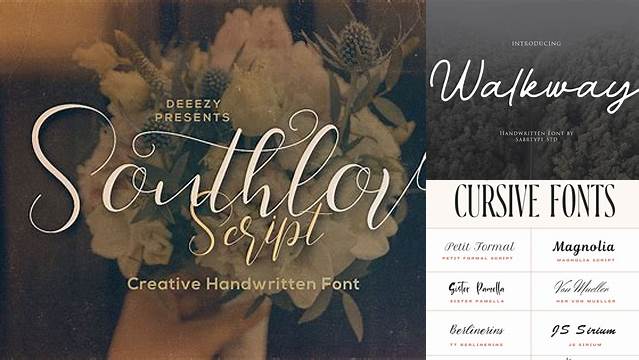
Top Cursive Fonts For Premiere Pro: Elevate Your Videos
Hey guys! Ever wanted to add that extra oomph to your videos with some elegant, flowing text? Well, you've come to the right place! In this article, we're diving deep into the world of cursive fonts in Premiere Pro. We'll explore why they're so effective, how to use them, and, most importantly, which ones will make your videos shine. So, buckle up and let's get started!
Why Use Cursive Fonts in Your Videos?
Cursive fonts, with their flowing lines and handwritten feel, can bring a touch of sophistication and personality to your video projects. But why should you specifically consider using these types of fonts? Let's break it down:
- Elegance and Style: Cursive fonts instantly add a touch of class. They evoke a sense of refinement, making them perfect for videos that aim for a polished and professional look. Think wedding videos, cinematic intros, or even tutorials where you want to project a sense of expertise and care.
- Emotional Connection: The handwritten nature of cursive fonts creates a more personal and intimate connection with the viewer. It's like you're communicating directly with them, adding a human touch that can be missing in more rigid, blocky fonts. This is especially useful for storytelling, documentaries, or any video where you want to build an emotional connection.
- Emphasis and Highlight: A well-placed cursive font can draw the viewer's eye to key information or a specific message. Imagine using a beautiful cursive font for a title, a quote, or a call to action. It stands out and makes your message more memorable. However, remember to use it sparingly for emphasis – overdoing it can dilute the effect.
- Brand Identity: If your brand has a personality that's elegant, creative, or personal, then using cursive fonts can be a great way to reinforce your brand identity. Consistent use of a specific cursive font can help viewers instantly recognize your style. Think about luxury brands, artisanal businesses, or creative agencies – they often use cursive fonts to convey their brand aesthetic.
- Versatility (with caveats): While cursive fonts are known for their elegance, they can also be surprisingly versatile. Depending on the specific font style – from delicate and airy to bold and dramatic – you can use them in a wide range of video genres. However, it's important to consider the context. A highly ornate cursive font might not be suitable for a tech tutorial, for example. Always choose a font that matches the overall tone and style of your video.
Choosing the right cursive font is crucial. A poorly chosen font can be illegible or clash with your video's aesthetic. We'll delve into specific font recommendations later, but keep these general principles in mind: readability is key, consider the mood you want to create, and ensure the font complements your overall design.
Top Cursive Fonts for Premiere Pro
Okay, let's get to the good stuff! Here are some of the best cursive fonts for Premiere Pro that will elevate your video projects. Remember, the best font for you will depend on the specific style and tone you're aiming for, so experiment and find what works best for your project.
1. Bristro Script
Bristro Script is a modern calligraphy font that exudes elegance and charm. Its flowing strokes and delicate curves make it perfect for wedding videos, romantic films, or any project that needs a touch of sophistication. It's highly readable and features a vast range of glyphs, making it ideal for any use case. Bristro Script is extremely versatile, it offers OpenType features such as stylistic alternates and ligatures. These enable you to make your text look even more unique, like it has been handwritten by a pro calligrapher. It works well in titles, subtitles, lower thirds, and end screens. However, it can also be used for body text with the correct size and kerning. This font can be a great way to convey a sense of style in the videos.
2. Anisha Script
If you're looking for a font that strikes a balance between elegance and playfulness, Anisha Script is an excellent choice. It has a whimsical feel that makes it suitable for children's videos, birthday greetings, or any project that needs a touch of fun. It is a beautiful, handwritten-style script with a flowing and organic feel. This font can be great for a variety of projects, including logo design, branding, social media graphics, and even wedding invitations. Anisha Script offers a variety of OpenType features, including stylistic alternates, swashes, and ligatures. These features allow you to add extra flair and personality to your text. This can help you make it truly unique. It also offers multiple language support, making it a global choice. The versatility of Anisha Script also makes it a great choice for branding materials. A consistent brand identity is essential, and the font can help you create that. It is a great option for anyone looking for a charming and versatile font.
3. Adelia
Adelia is a classic cursive font with a timeless appeal. Its clean lines and elegant letterforms make it highly readable and versatile. It is a beautiful and elegant cursive typeface that exudes sophistication and charm. It is characterized by its flowing strokes, graceful curves, and delicate details. This makes it a popular choice for a wide range of design projects. Adelia is often used for wedding invitations, stationery, and other formal occasions, where its elegant touch can elevate the overall design. Its versatility extends to branding materials, logos, and website design, where it can add a touch of sophistication and personality. Its flowing strokes and delicate curves make it ideal for headings, titles, and short blocks of text, allowing for a visually appealing and engaging reading experience. Adelia is a beautiful and versatile cursive font that can add elegance, sophistication, and a touch of personality to any design project.
4. Honey Shine
Honey Shine is a bold and playful cursive font that demands attention. Its thick strokes and dynamic curves make it perfect for titles, logos, or any project where you want to make a statement. It is a visually appealing typeface characterized by its rounded forms and friendly, inviting aesthetic. This font’s playful nature makes it a versatile option for a wide array of design projects, ranging from branding and advertising to web design and social media graphics. Honey Shine’s strengths lie in its ability to convey warmth and positivity. This makes it an excellent choice for brands and projects that aim to connect with their audience on an emotional level. Honey Shine's rounded letterforms also contribute to its excellent readability, making it suitable for both headlines and body text, though it truly shines in display settings where its personality can take center stage. This font is a cheerful and engaging option that can bring a touch of personality and warmth to any design project. Its versatility and friendly aesthetic make it a valuable asset for designers looking to create visually appealing and memorable designs.
So, there you have it, guys! A deep dive into the world of cursive fonts in Premiere Pro. We've explored why they're so effective, highlighted some top font choices, and discussed how to use them effectively in your video projects. Remember, choosing the right font is a crucial part of video editing, and a well-chosen cursive font can add that extra touch of elegance, personality, and style to your videos. Happy editing!